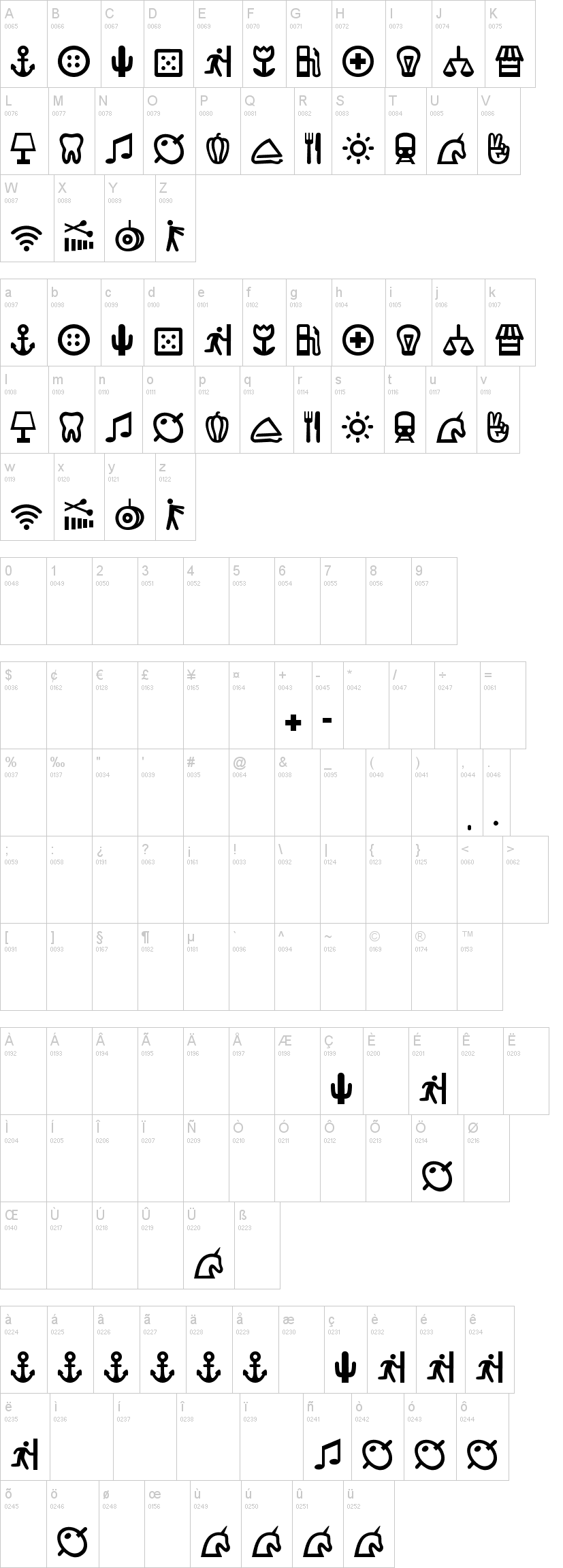
Note of the authorIt is a Rebus font based on icons and symbols that can be intuitively decrypted and whose key words start by the same letter that represent in English, Spanish and French.